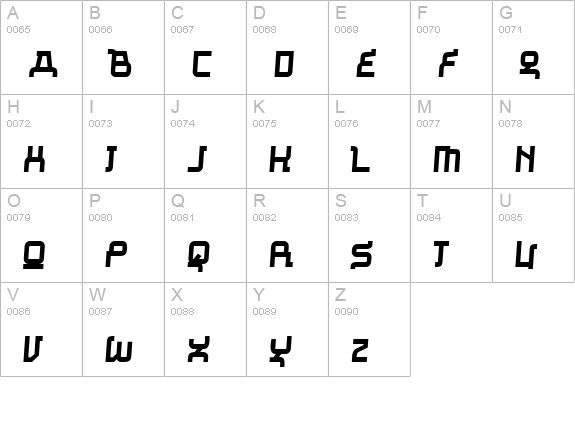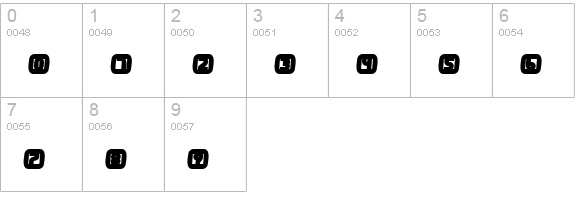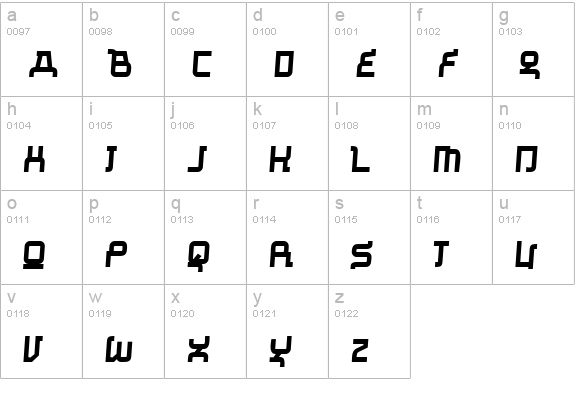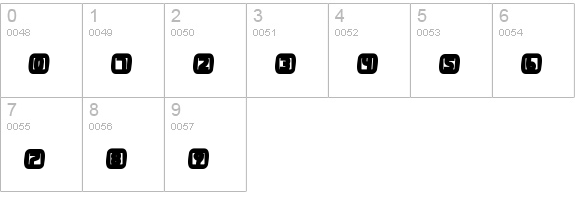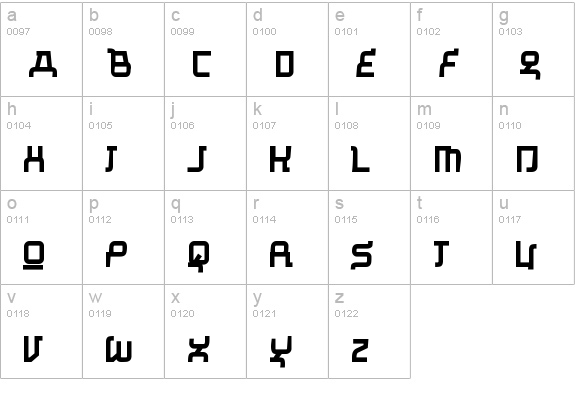
Missu Black Font Details
Missu Black is a maximum-weight, dramatic variant in the Missu typeface family \xE2\x80\x94 well suited to maximum-impact headlines, posters, and packaging.
Missu Black font is a stylish and modern typeface that exudes elegance and sophistication. With its bold and sleek design, Missu Black is perfect for adding a touch of class to any project. Whether you're working on a logo, website design, or any other creative endeavor, this font is sure to make a statement. The best part? Missu Black font is available for free download at FontsMarket.com! Simply head over to the website and start using this beautiful typeface in your projects today. Don't miss out on the opportunity to enhance your designs with the stunning Missu Black font – download it now and take your creations to the next level.